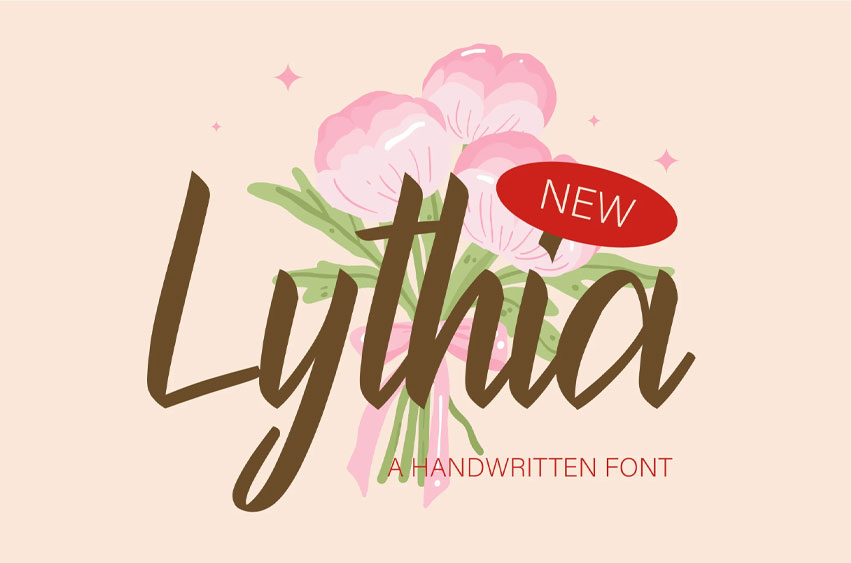
Lythia Font
Lythia Font is a captivating script font that combines fluid elegance with a touch of modern charm. Its smooth, sweeping curves and distinctive letterforms create a balanced, harmonious flow that captures attention without overpowering the design.
Ideal for luxury branding, elegant invitations, and artistic projects, Lythia brings a refined, sophisticated touch to any design.